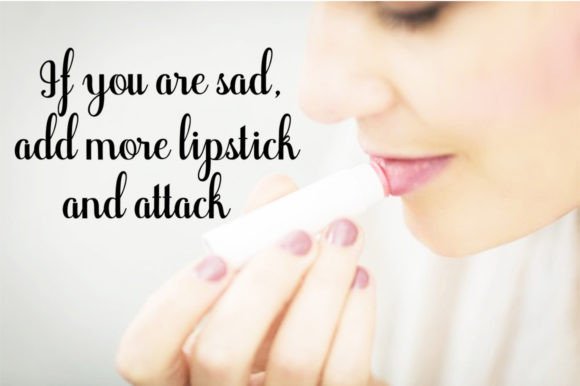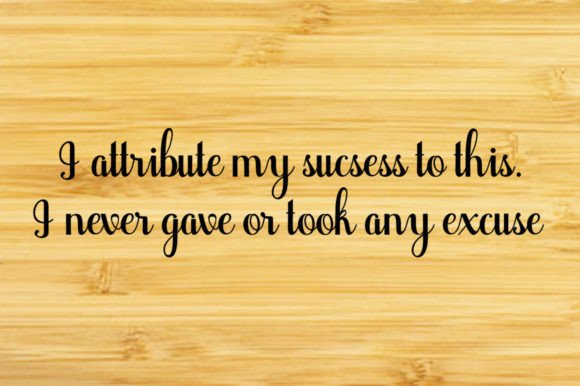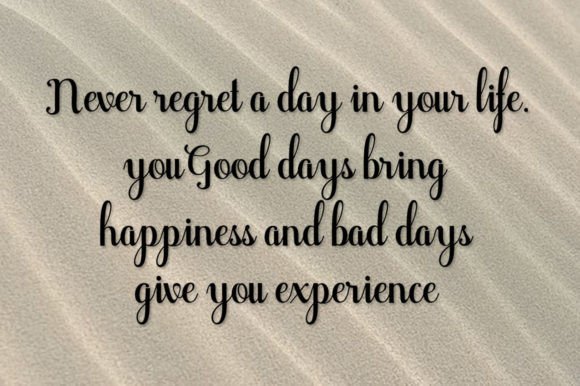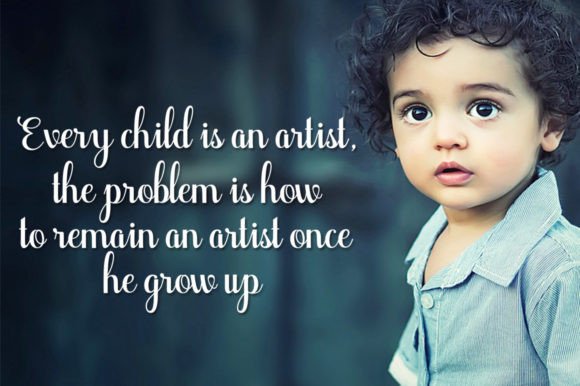
Discover the Charm of Castline Font
There’s something magical about creating a design that transports you back to a simpler time. Maybe it’s the feel of paper beneath your fingers or the sound of a pen scratching across the page. Whatever it is, the Castline Font is sure to evoke those same feelings of nostalgia and charm. This beautifully crafted handwritten font is designed to add a touch of elegance and style to any project.
Whether you’re working on a logo, magazine, or wedding invitation, the Castline Font is the perfect choice. Its smooth, clean lines and varied base lines make it a versatile and feminine font that’s sure to impress. With its PUA Unicode coding, you’ll have full access to all the additional characters you need, without having to rely on special design software. The Castline Font is a valuable addition to any designer’s toolkit, and we’re excited to share its charm with you.
- Unique Script Style: The Castline Font features a unique script style that combines elegance and sophistication, making it perfect for formal and professional applications.
- Wide Character Set: The font includes a wide character set, including uppercase and lowercase letters, numbers, and punctuation marks, as well as international characters and symbols.
Castline Font Review
Overall, I think Castline Font has some nice qualities, but it’s not perfect. Here’s my honest take:
- The font is quite versatile, suitable for a wide range of projects, from digital displays to printed materials.
- The bold and regular weights are well-balanced, making it easy to read and understand the text.
- The font’s clean lines and minimalist design make it a great choice for modern and sleek branding.
- The font lacks a clear, distinct personality, making it feel somewhat generic.
- The italic and bold italic weights could be improved to match the regular and bold weights.
- The font may not be the best choice for projects requiring a lot of text density or complexity.
While Castline Font has its strengths, it falls short in terms of originality and expressiveness. However, it’s still a solid choice for projects where you want a clean, modern look without too much flair. With some tweaks to its limitations, it could be a more compelling font.
Castline Font is ideal for:
- Food and beverage labels